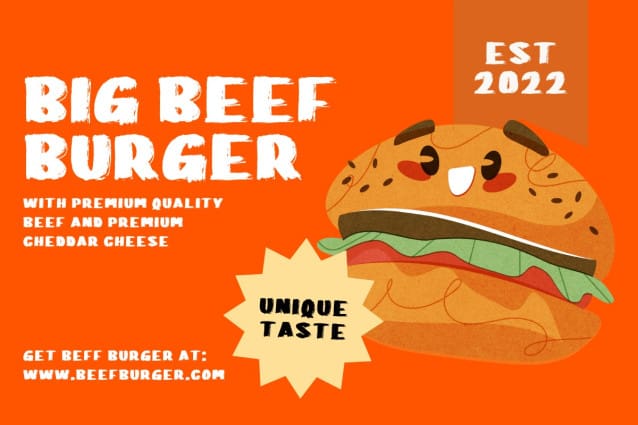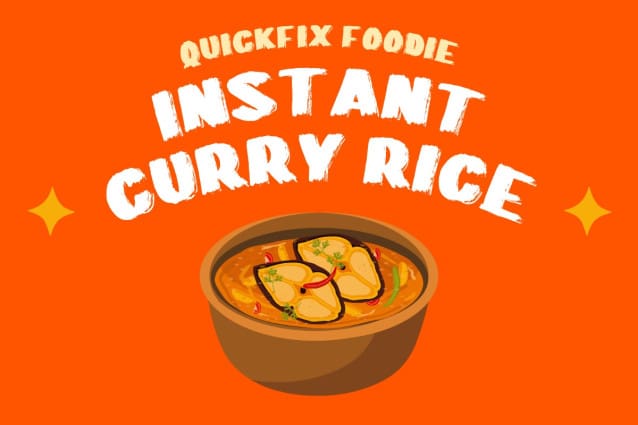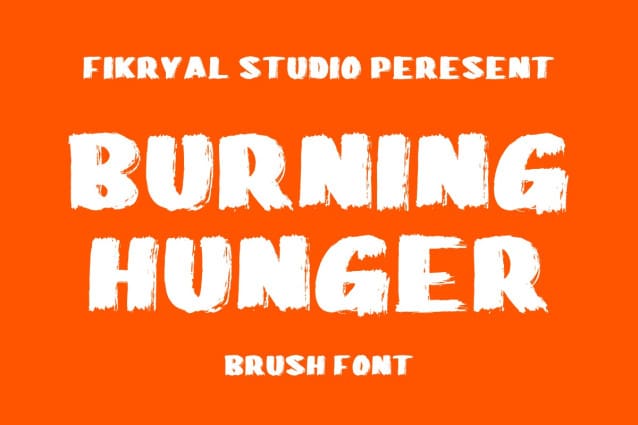
Burning Hunger Font
Burning Hunger Font, a brush display font that is bold and all caps. Inspired by dynamic brush strokes, this font is perfect for posters, banners, headlines, branding, and social media. With its artistic brush texture, Burning Hunger delivers a strong and passionate visual impact in every design.